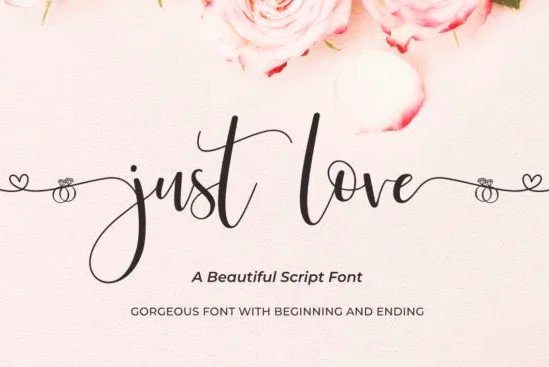
We are excited to present the Just Love Calligraphy Script Font to you. This elegant and romantic typeface provides full access to its glyphs, ligatures, and swashes.
This scripted texture contains smooth baselines, gorgeous looks, and mind-blowing designs which can easily attractive to its viewers.